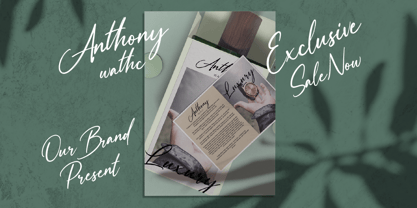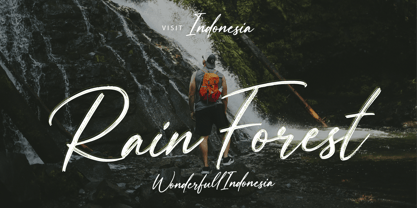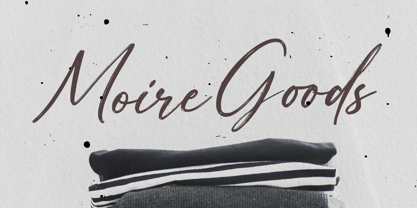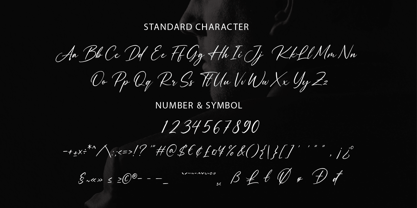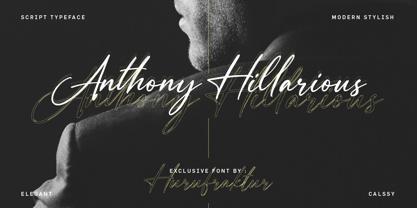
Anthony Hillarious
by Hurufraktur
The Anthony Hillarious Font Family was designed by Fadly Pratama and published by Hurufraktur. Anthony Hillarious contains 1 styles. More about this family
Anthony Hillarious is a modern, stylish script typeface that blends the grace of handcrafted calligraphy with the sophistication of contemporary typography. Designed by Hurufraktur, this font is made for those who value elegance, flow, and expressive letterforms that speak with personality.
✴️ Inspiration & Concept
Anthony Hillarious was inspired by the timeless beauty of luxury signatures and fashion branding. Drawing influence from classic penmanship, high-end editorial layouts, and bespoke wedding calligraphy, every stroke is crafted to feel natural yet refined. The design marries smooth, sweeping curves with crisp detailing, creating a balance between elegance and readability.
The name—Anthony Hillarious—evokes charm, sophistication, and a touch of bold character, perfectly capturing the mood this typeface brings to your designs.
🎯 Who It’s For
Anthony Hillarious is perfect for designers, brands, and creatives who want to inject elegance and modern flair into their work. Ideal for:
• Luxury branding & fashion logos
• Wedding invitations & stationery
• Magazine headlines & editorials
• Signature-style watermarks
• Social media content & Self-branding
• Premium packaging design
If your project calls for a typeface that exudes class, romance, and timeless charm, Anthony Hillarious delivers it with every letter.
• Full A–Z uppercase & lowercase script set
• Numerals 0–9
• Standard punctuation & special characters
• Smooth kerning for natural flow
• Alternate stylistic swashes (depending on software compatibility)
📏 Versatility & Style
Anthony Hillarious works beautifully as a standalone logotype or paired with serif/sans-serif fonts for a sophisticated contrast. Its fluid letterforms adapt seamlessly to both print and digital projects, ensuring your designs stand out with confidence and refinement.
• Recommended for display purposes and short text settings
• Perfect for branding, headlines, and decorative design work